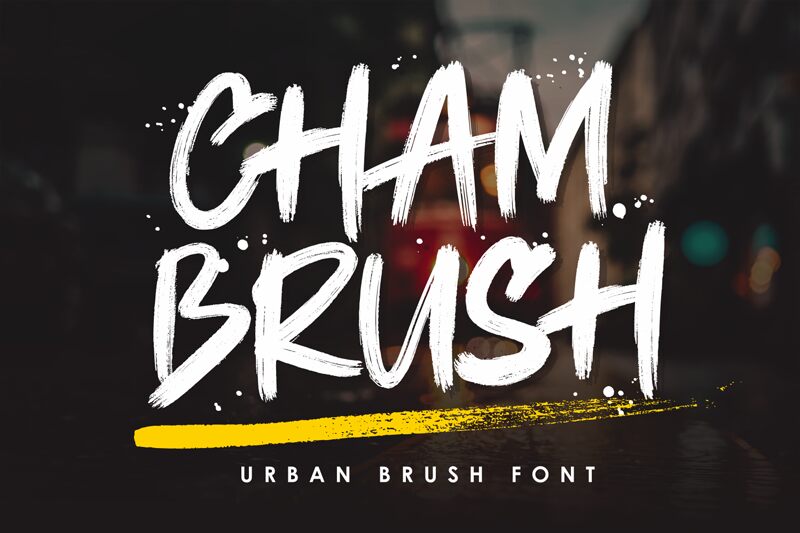
Chambrush font by girinesia.std is a free expressive brush typeface with a spontaneous and artistic style inspired by street art. Each character is unique, modern, and playful, with an energetic urban appearance. Fun and versatile, the font is all caps with a great range of symbols to allow creative approach and broaden people’s horizons in using it for a different kind of project each time.
Explore a wide range of uses including logotypes, apparel design, signage, social media advertisements, branding campaigns, print and product packaging, poster design, and more. The font can also be used for digital designs, packaging, or web design.